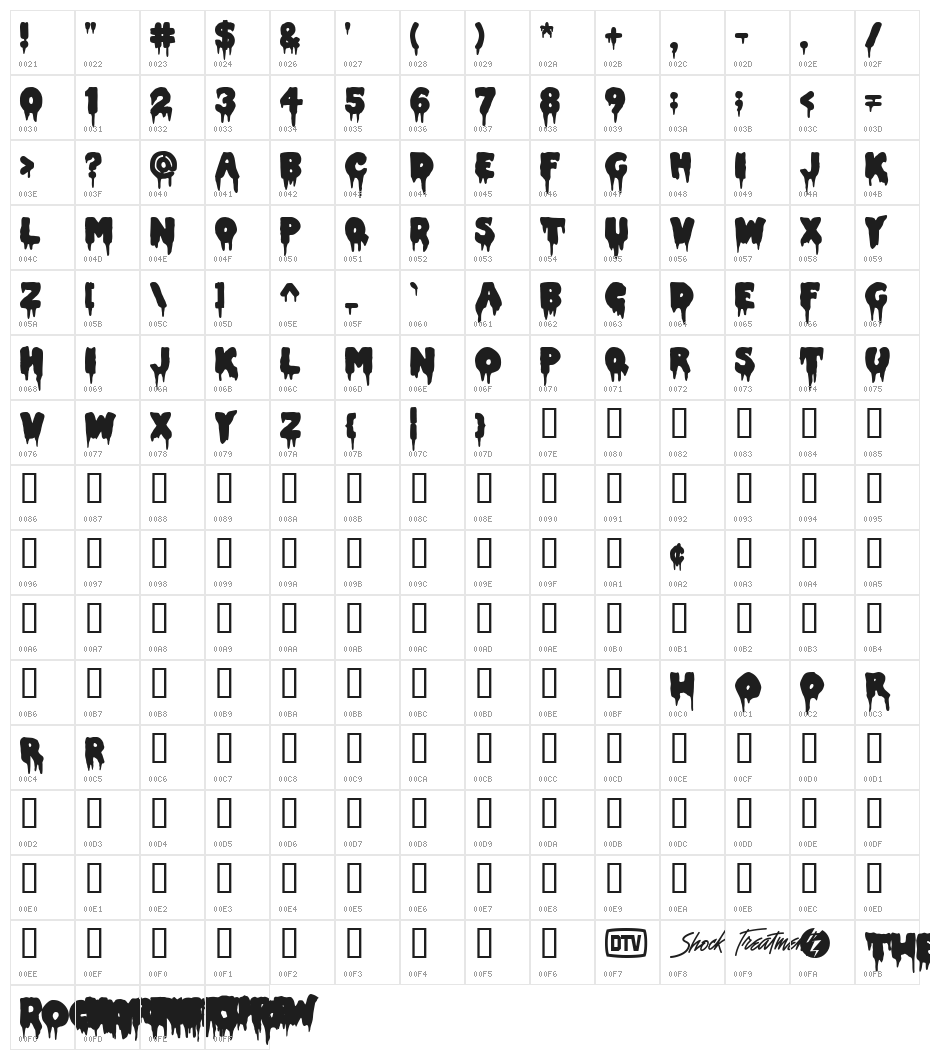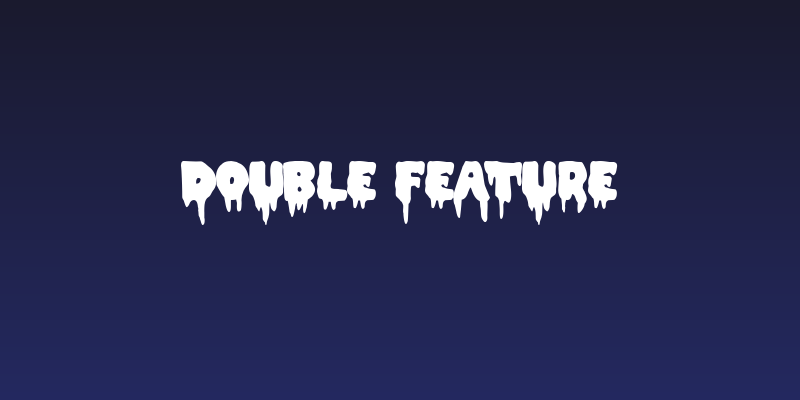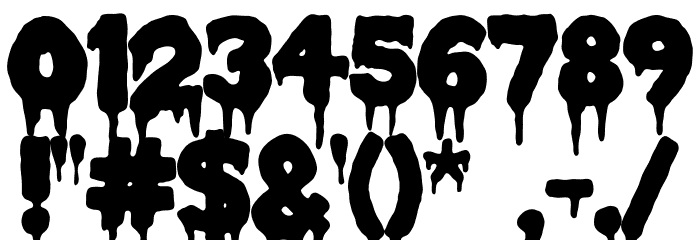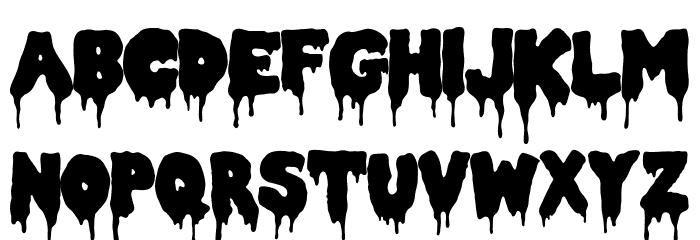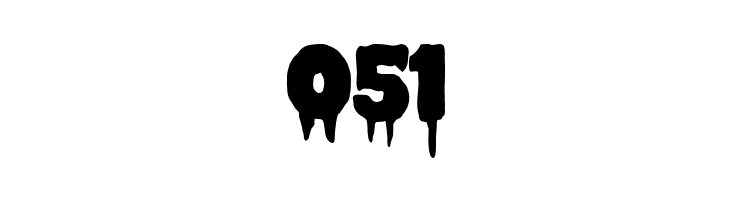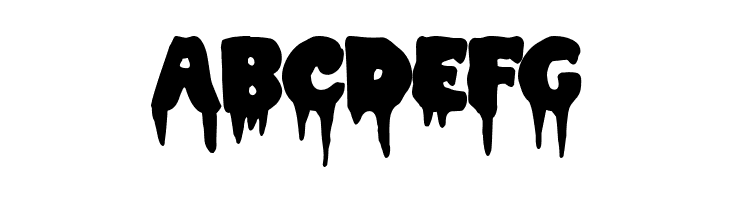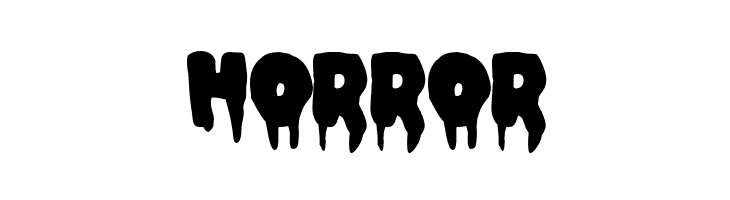
Double Feature Font
Double Feature Description
This font features a bold, dripping design that evokes a sense of horror or Halloween-themed aesthetics. The characters appear as if they are melting or oozing, with irregular edges and a playful, yet eerie appearance. The uppercase and lowercase letters maintain a consistent style, with each character exhibiting unique drips that add to the overall spooky effect. The numbers and special characters follow the same theme, ensuring a cohesive look across all elements. This font is perfect for creating eye-catching titles or designs that require a dramatic and thematic touch.